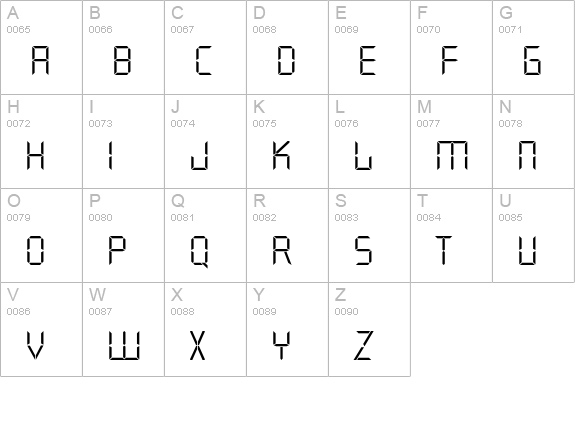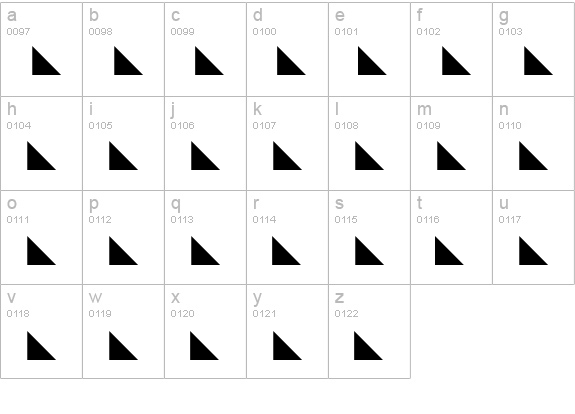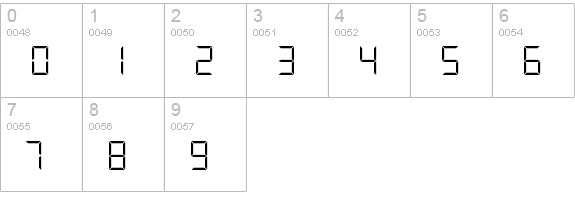
Quartz-Light Font Details
Quartz-Light is a refined, elegant variant in the Quartz typeface family \xE2\x80\x94 well suited to elegant body text, refined sub-headings, and luxury branding.
Quartz-Light font is a stunning typeface that effortlessly combines elegance and modernity. Its sleek and slender design gives any project a touch of sophistication and style. The thin strokes and clean lines of Quartz-Light create a sense of delicacy and grace that is perfect for a wide range of design applications. This font is the epitome of versatility, making it suitable for both print and digital projects. Whether you're designing a logo, creating a website, or designing a brochure, Quartz-Light font will add a touch of refinement to your work. One of the best things about Quartz-Light font is that it is completely free. Yes, you read that right! This exceptional font is freely available to download at FontsMarket.com. Now, you can enhance your projects with this remarkable font without any cost. The creators of Quartz-Light font understand the importance of accessibility and have made it easily accessible for everyone. So, whether you are a professional designer or a student working on a personal project, you can enjoy the beauty of Quartz-Light font without breaking the bank. The versatility, elegance, and cost-effectiveness of Quartz-Light font make it a must-have in every designer's toolkit. Its timeless appeal and effortless charm will elevate your designs and leave a lasting impression on your audience. Download Quartz-Light font today from FontsMarket.com and unlock a world of possibilities for your creative endeavors. Transform your projects with this stunning font and experience the power of free design resources.